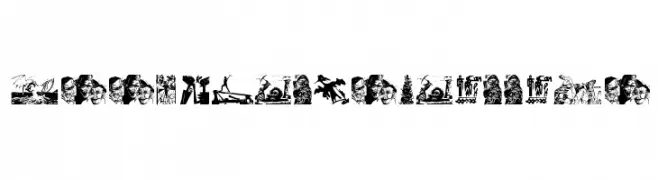
A bold, playful font with a cartoonish, hand-drawn style.
Bold, blocky characters enclosed in square outlines with a playful, stencil-like appearance.
A playful, whimsical font with bold, rounded characters and decorative elements.
A rugged, hand-drawn font inspired by barbed wire, perfect for edgy designs.
A bold, dotted font with a modern and playful style.
Portrait-based decorative font using U.S. presidents' faces as glyphs.
A bold, distressed font with a vintage, rugged appearance.
A bold, dripping font perfect for spooky and dramatic designs.
A dripping, horror-themed font with a bold, eerie style.
A whimsical, hand-drawn font with tall, slender letters and playful strokes.
A bold, decorative font with whimsical swirls and flourishes.
A playful, bold font with reversed characters and a handcrafted feel.
A bold, blocky font with characters enclosed in squares, offering a playful and artistic style.
A bold, cursive font with a playful, handwritten style.
A bold, stencil-style font with a military-inspired, rugged aesthetic.
A modern, minimalistic icon set with bold lines and uniform spacing.
A playful, hand-drawn font with bold, irregular characters.
A playful, hand-drawn font with bold, irregular strokes and whimsical serifs.
A bold, hand-drawn font with an artistic, ink-splattered style.
A playful, whimsical font with cartoonish elements and a hand-drawn style.
A playful, bold, and cartoonish font with a hand-drawn, shadowed style.
A bold, decorative font with a textured, engraved appearance.
A bold, quirky font with irregular shapes and dripping elements, perfect for creative projects.
Hand-drawn animal-themed decorative font with playful, cartoonish illustrations.
A distressed, hand-drawn font with a rustic and vintage feel.
Hand-drawn, quirky illustrated faces with bold lines and playful expressions.
A display font composed of quirky, hand-drawn faces as characters.
A decorative font featuring playful and unique skull illustrations.
A whimsical, decorative font with festive Christmas-themed illustrations.
A bold, distressed font with a vintage, handcrafted feel.
A decorative, Halloween-themed font with spooky, hand-drawn illustrations.
A playful, Halloween-themed font with characters carved into pumpkin shapes.
A quirky, hand-drawn dingbat font with cartoonish illustrations.
Playful, horror-themed hand-drawn dingbat font with bold, cartoonish illustrations.
A bold, jagged, woodcut-style decorative display font with gothic influences.